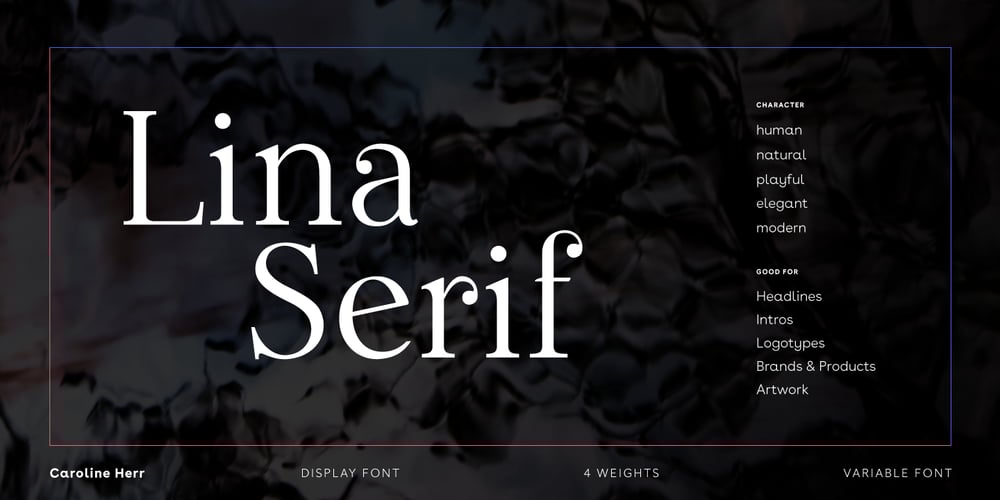
Lina Serif
Lina Serif font
Lina Serif Font Family was designed by Caroline Herr and published by Caroline Herr. Lina Serif contains 5 styles and family package options. Lina Serif is an antiqua balanced between classic and modern. The design focused on the combination of flowing shapes and partially edged transitions, that give Lina her character. The font plays with a high line contrast in combination with dynamic shapes. This makes Lina a casually elegant display font. The terminals remind on floral shapes. Lina gives your design a human, natural touch. Lina Serif is available in 4 weights or as variable font with infinitely variable interpolation of weight.